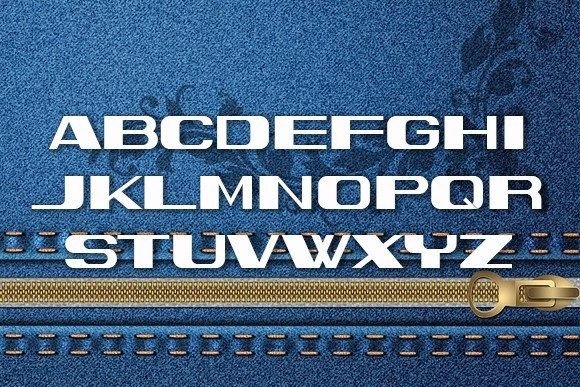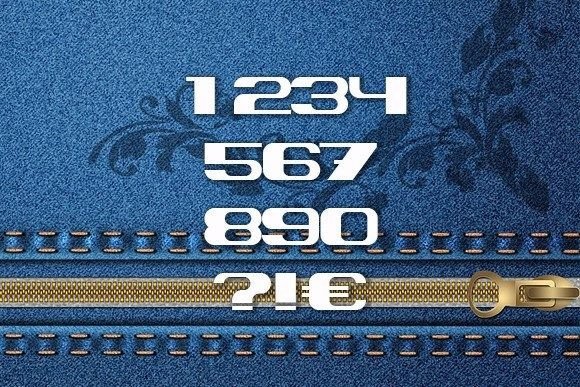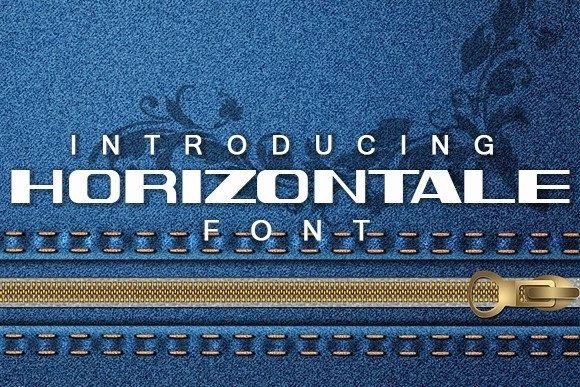
Introduction to Horizontale Font
Horizontale is a modern and neat sans serif font.
Its versatility makes it perfect for a wide pool of designs, elevating them to the highest levels Add this font to your favorite creative ideas, and notice how it makes them come alive.
Horizontale Font offers exceptional quality and versatility, making it a valuable addition to your design toolkit. Whether you’re creating for personal projects or commercial use, Horizontale Font delivers professional results.